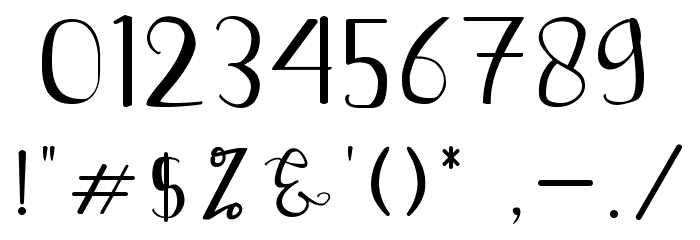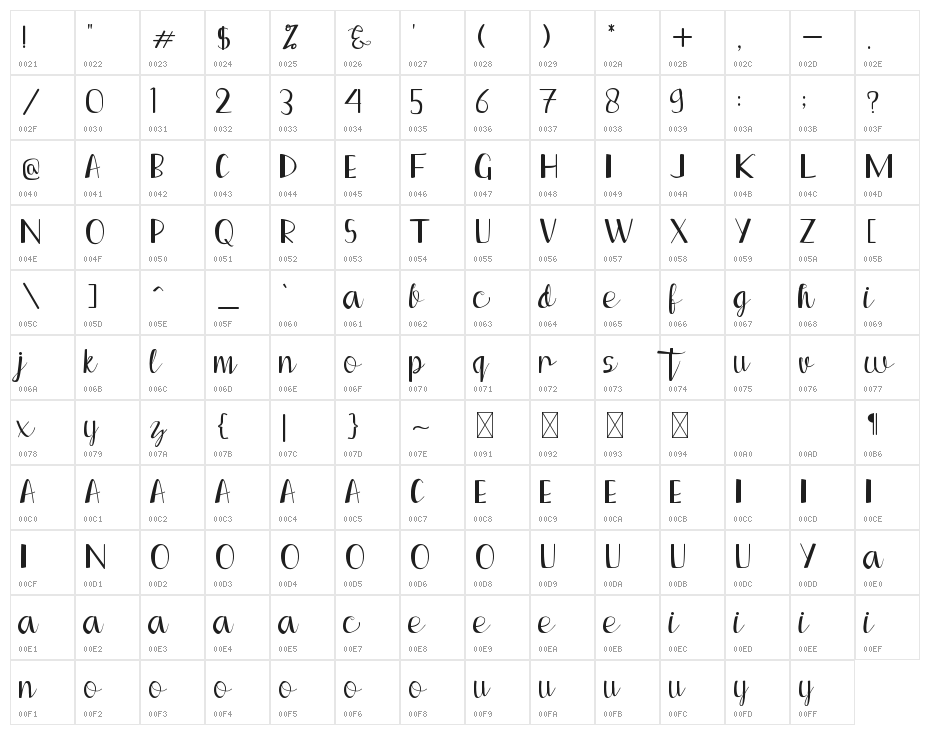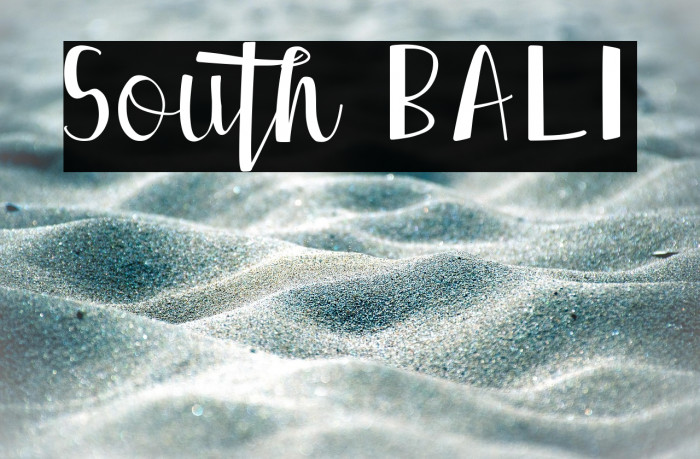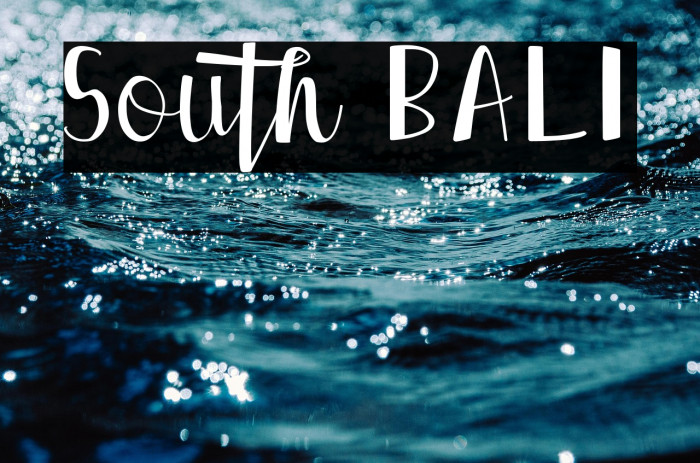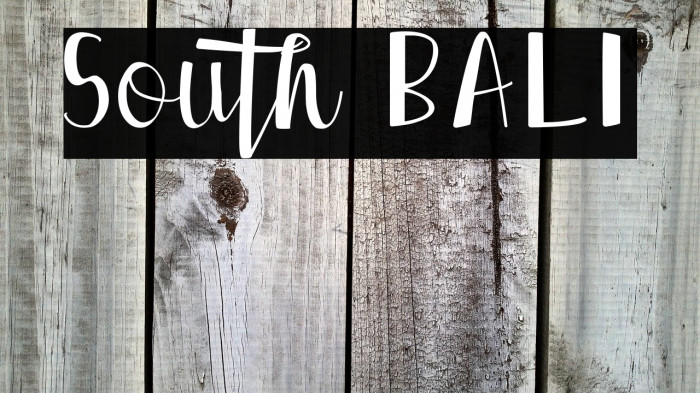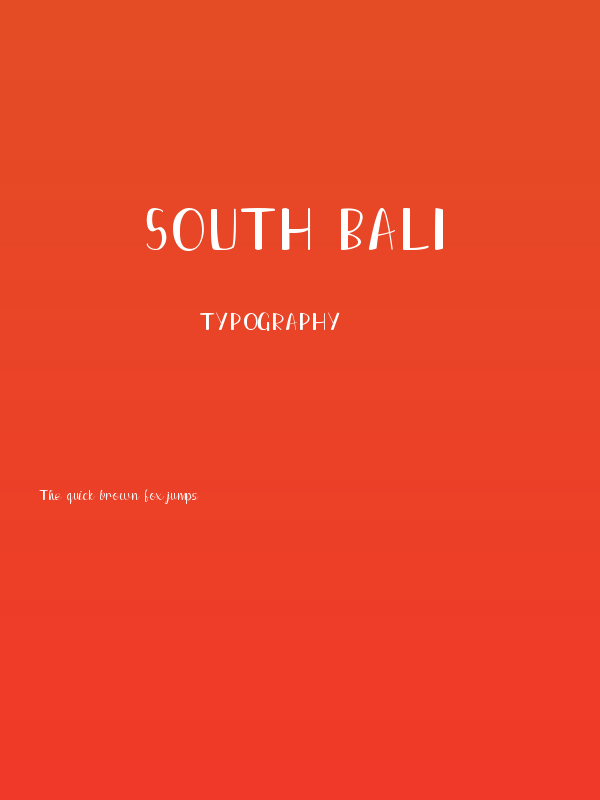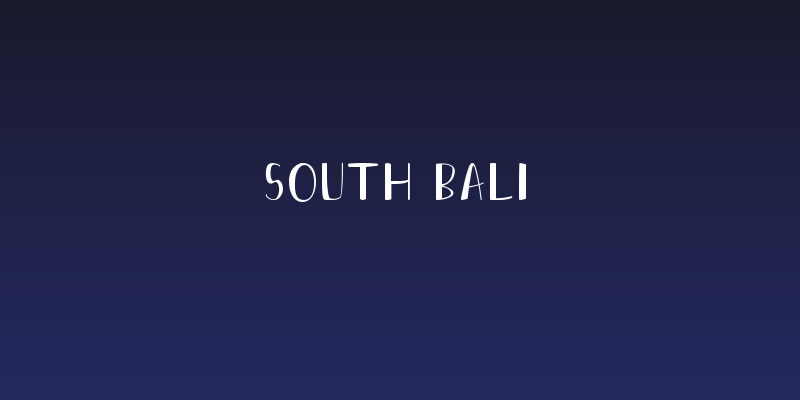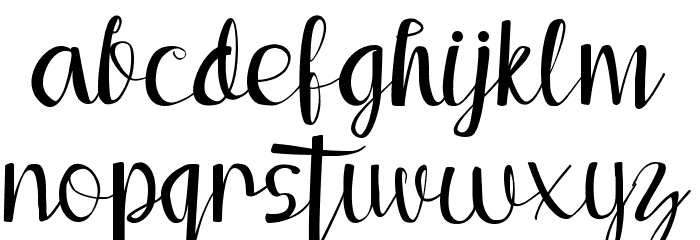
South BALI Font
South BALI Description
This font features a playful and dynamic style, combining elements of both script and sans-serif characteristics. The uppercase letters are bold and slightly condensed, with a whimsical flair that adds personality. The lowercase letters are more fluid, with some characters exhibiting a handwritten quality. The numbers are consistent with the overall style, maintaining a balance between readability and decorative appeal. Special characters are creatively designed, enhancing the font's versatility. This font is suitable for projects that require a touch of creativity and fun.